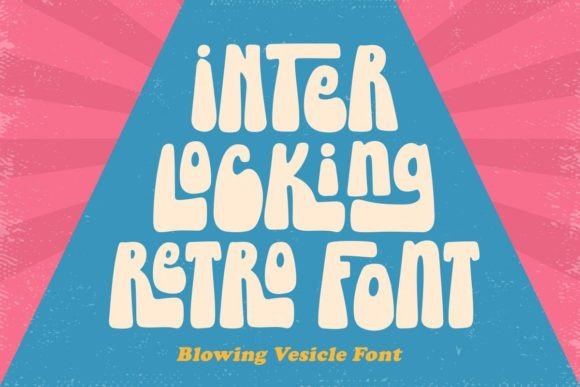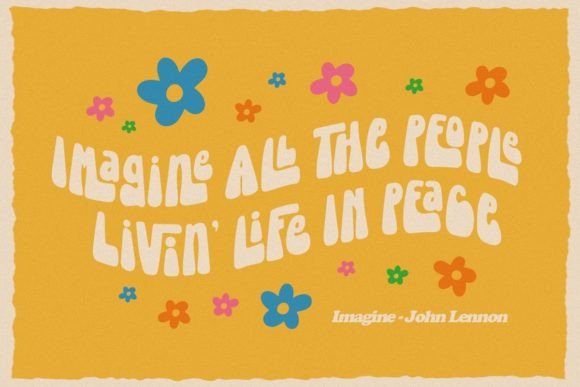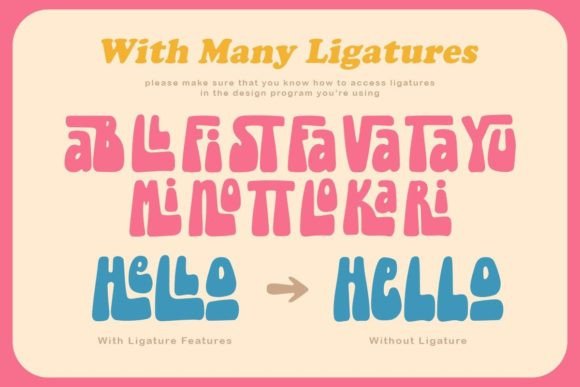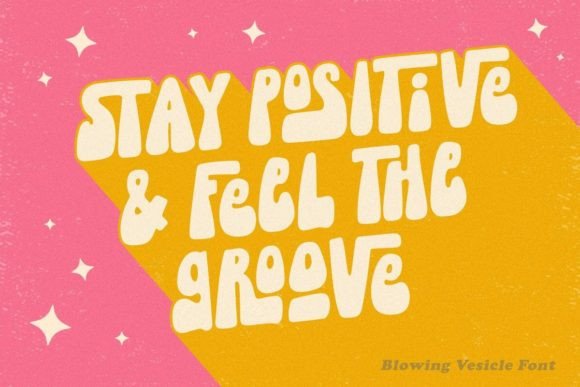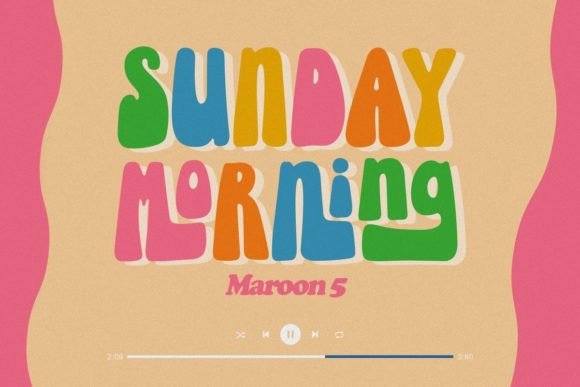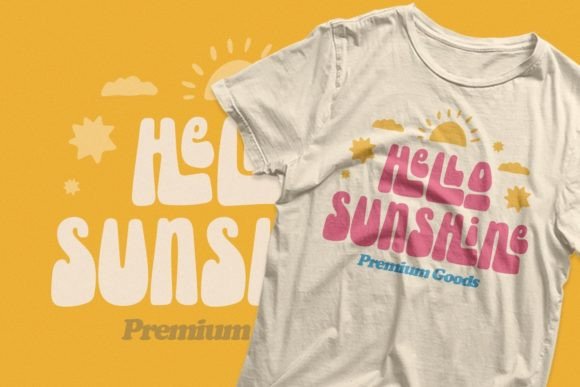
Get Ready to Groove: The Blowing Vesicle Font
Have you ever stared at a blank canvas, feeling the creative juices flow, and suddenly, the perfect font pops into your mind? That’s exactly what happened to me when I stumbled upon the Blowing Vesicle Font. Its retro charm transported me back to the psychedelic 60s, and I knew I had to share it with you.
This funky font is perfect for designers looking to add a touch of nostalgia to their projects. With its bold and playful style, Blowing Vesicle Font is sure to bring a smile to your customers’ faces. And the best part? It’s PUA encoded, making it easy to access all the amazing glyphs and ligatures that come with it.
Key Features of Blowing Vesicle Font
- Unique Characteristics: Blowing Vesicle Font features a unique, hand-drawn design with a playful and whimsical feel, making it ideal for creative and artistic projects.
- Kerning and Ligatures: Blowing Vesicle Font includes advanced kerning and ligature pairs, ensuring smooth and even spacing between letters.
Designer Review: Blowing Vesicle Font
Overall, I’d say Blowing Vesicle Font is a visually striking and unique addition to any design project. ✨ The subtle, hand-drawn feel of the font adds a touch of personality and whimsy, making it perfect for branding, logos, and other creative applications. The font’s flowing lines and organic shapes evoke a sense of movement and energy, which can be really compelling in the right context.
- Unique, hand-drawn feel that adds personality to designs ✨
- Subtle, flowing lines that evoke a sense of movement and energy
- Perfect for creative applications, such as branding, logos, and illustrations
However, there are a few limitations to consider. ⚠️ The font may not be the best choice for projects that require a more formal or traditional look, as its organic feel can sometimes come across as unpolished or inconsistent. Additionally, the font’s unique style may not be suitable for small text or body copy, as it can be difficult to read at smaller sizes.
Blowing Vesicle Font is a bold, creative choice that can add a lot of personality to a design project. While it may not be suitable for every project, it’s a great option for designers who want to add a touch of whimsy and movement to their work.
Blowing Vesicle Font is commonly used for:
- Titles and headings
- Special event invitations
- Children’s party decorations
Use Blowing Vesicle Font to add a playful and whimsical touch to your designs. Experiment with different font sizes, colors, and combinations to create unique and eye-catching effects.